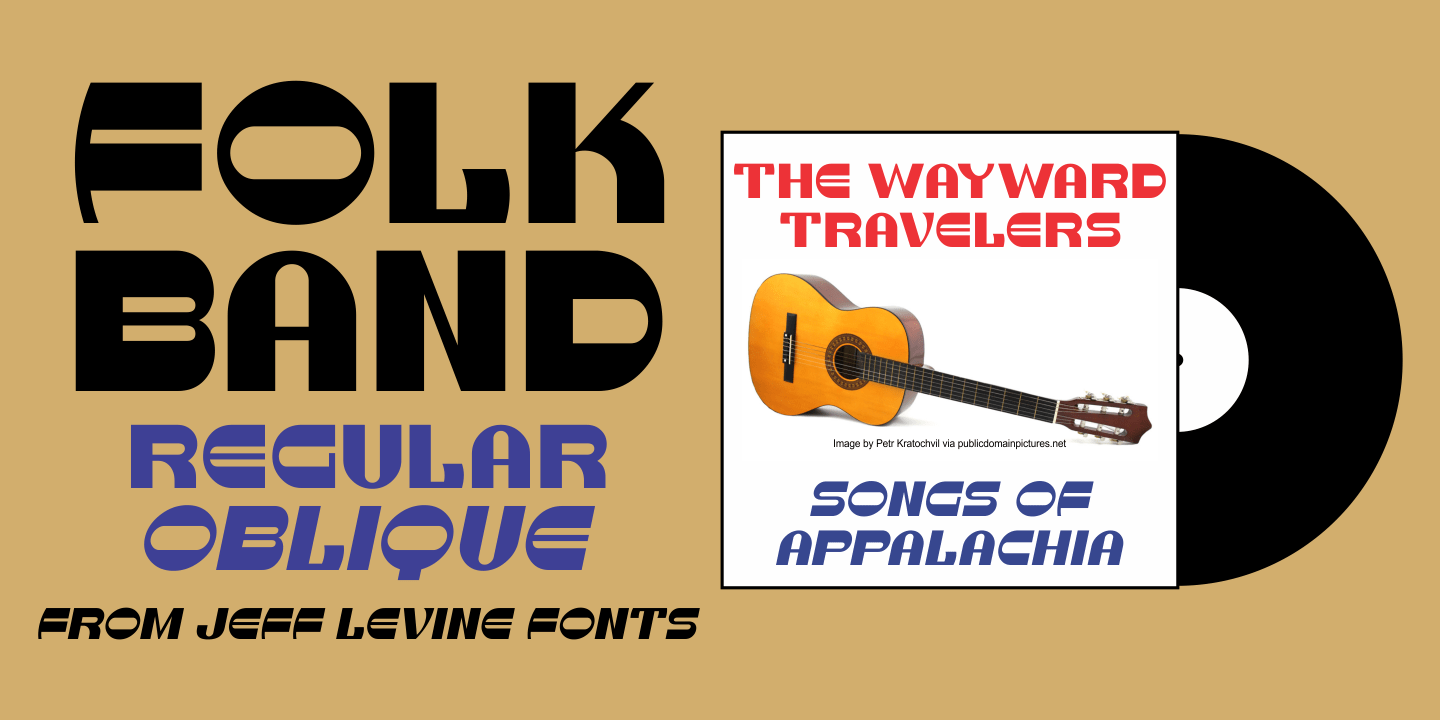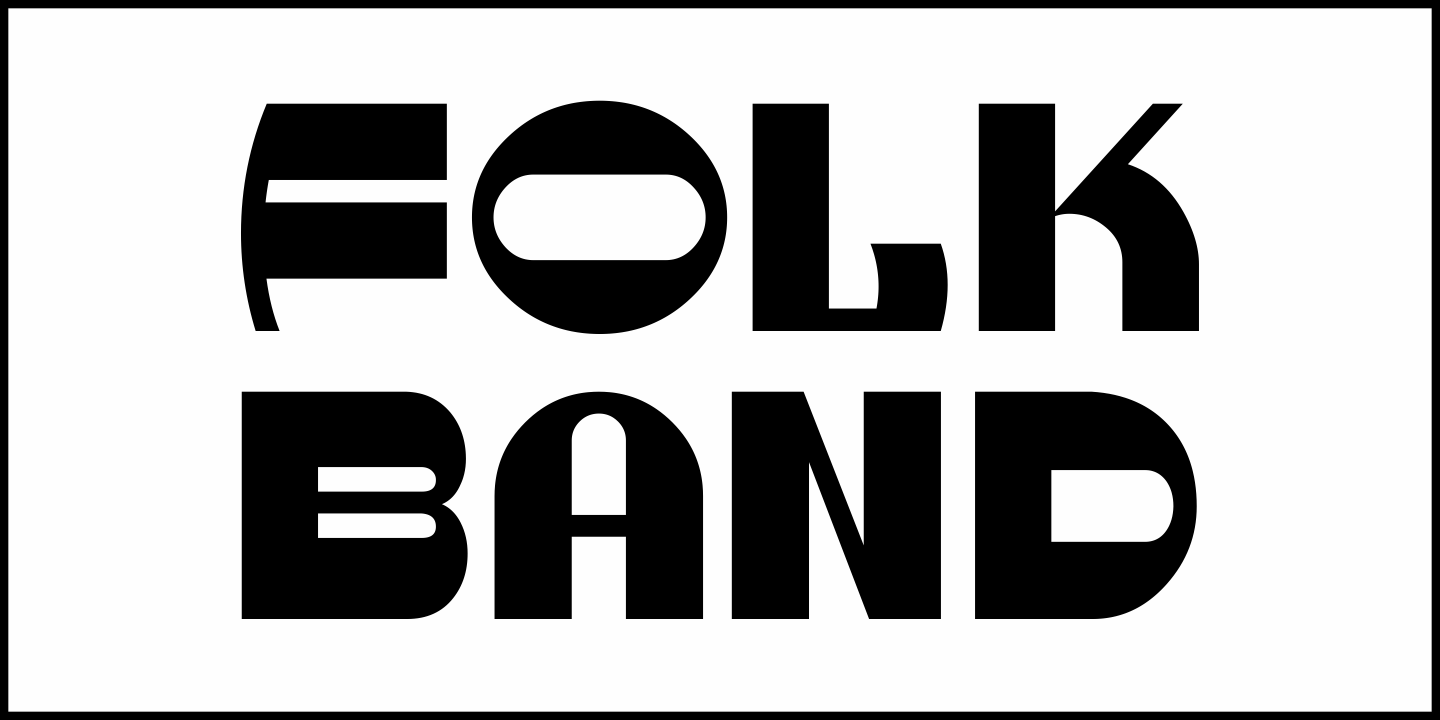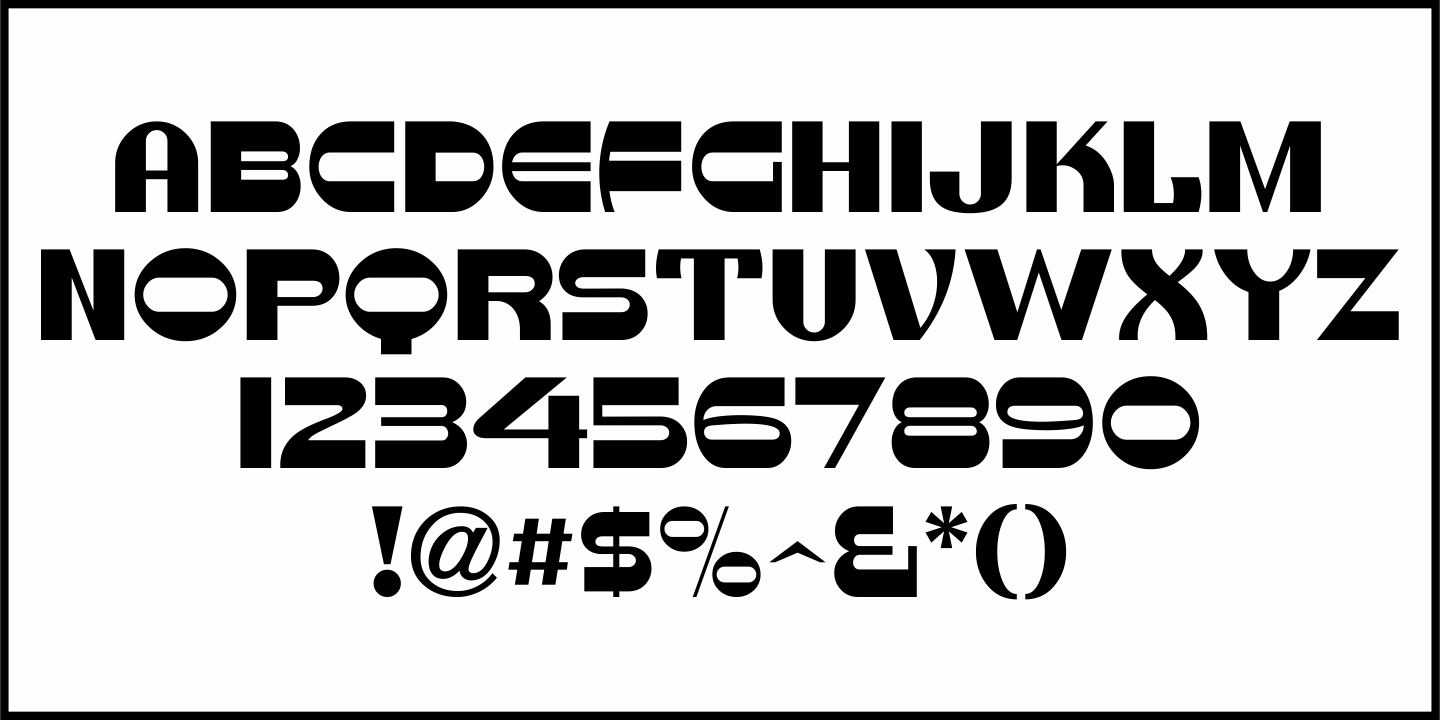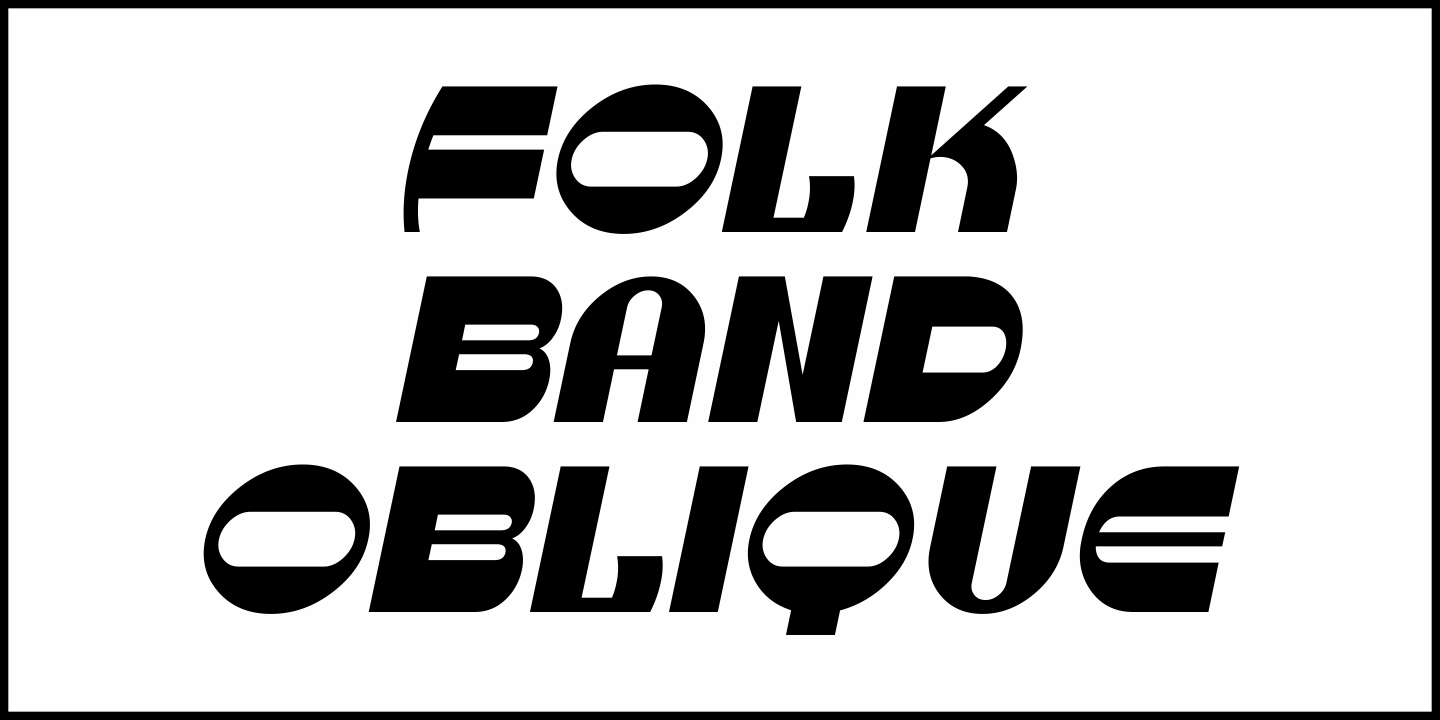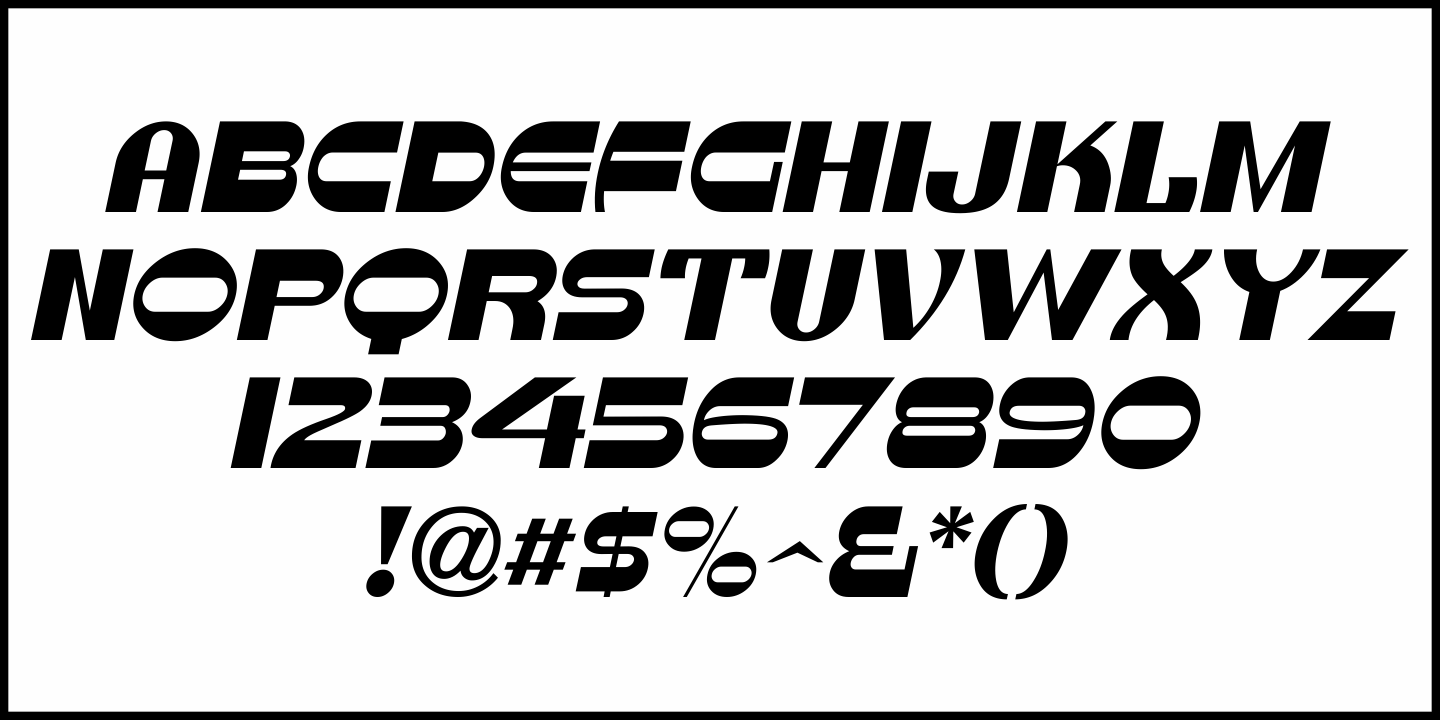
Folk Band
Paul Carlyle and Guy Oring's 1938 book "Letters and Lettering" contains many examples of plain and stylized alphabets and numerals for sign and show card work.  Under their "Variety" category is a bold sans serif novelty design which could have been inspired by Art Nouveau, Art Deco or a combination of the two.
Thie lettering sample also brings to mind the type revivals of the 1960s which were especially popular within the music industry at the time.  Thus, the digital revival is named Folk Band JNL and is available in both regular and oblique versions.